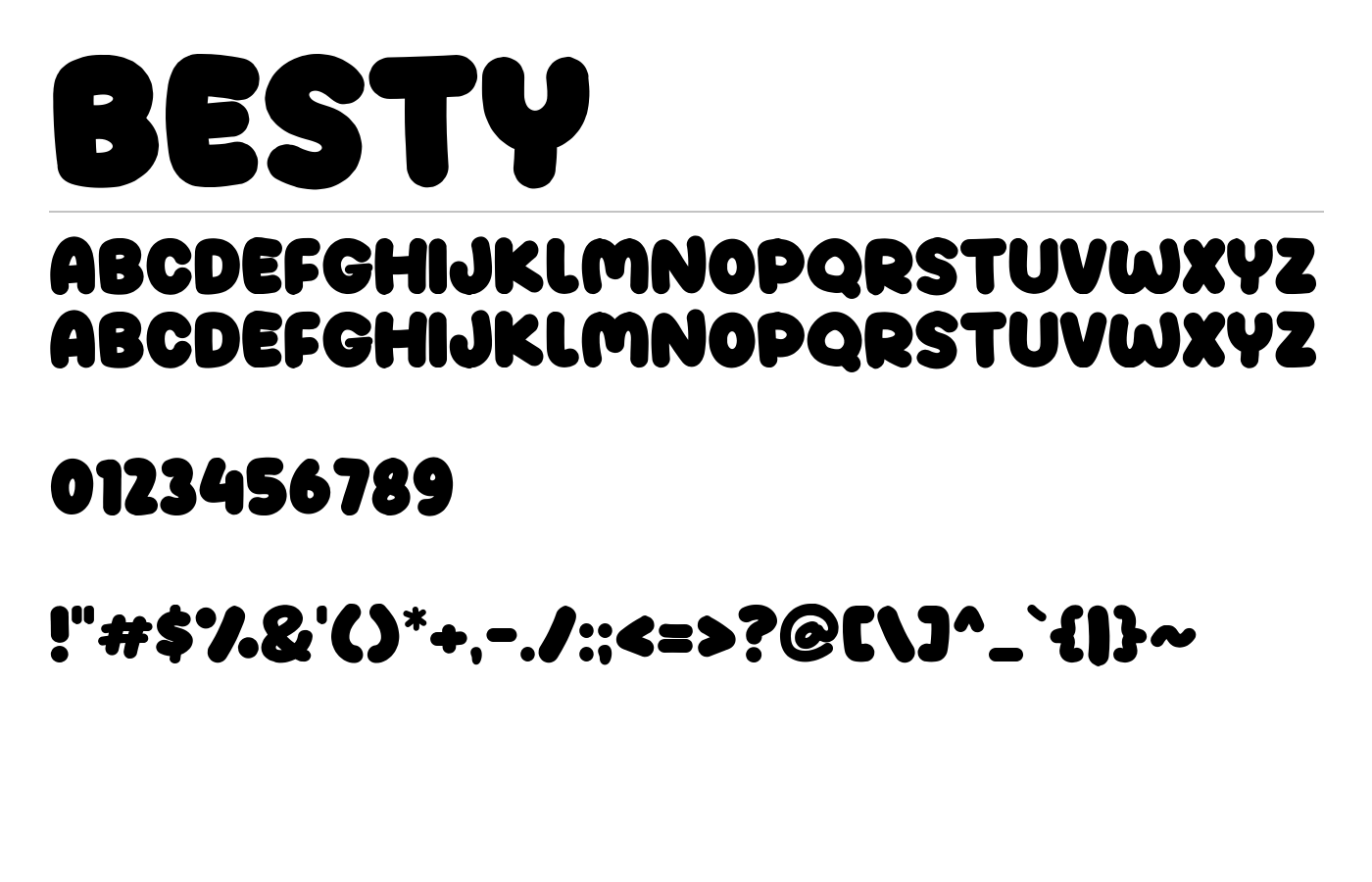
Besty Font is a bold, rounded sans serif typeface that exudes a playful and friendly vibe. Its thick, bubbly letterforms and consistent weight make it ideal for fun, casual branding, children’s products, and eye-catching headlines that need a warm, approachable feel. This font works wonderfully where a lively and informal tone is desired, bringing energy and charm to packaging, posters, and digital content.
Besty Font
About Besty Font